Handwriting font pairings
Older generations bemoan younger people not knowing how to write in cursive, but elegant and calligraphic handwriting fonts fill that gap.
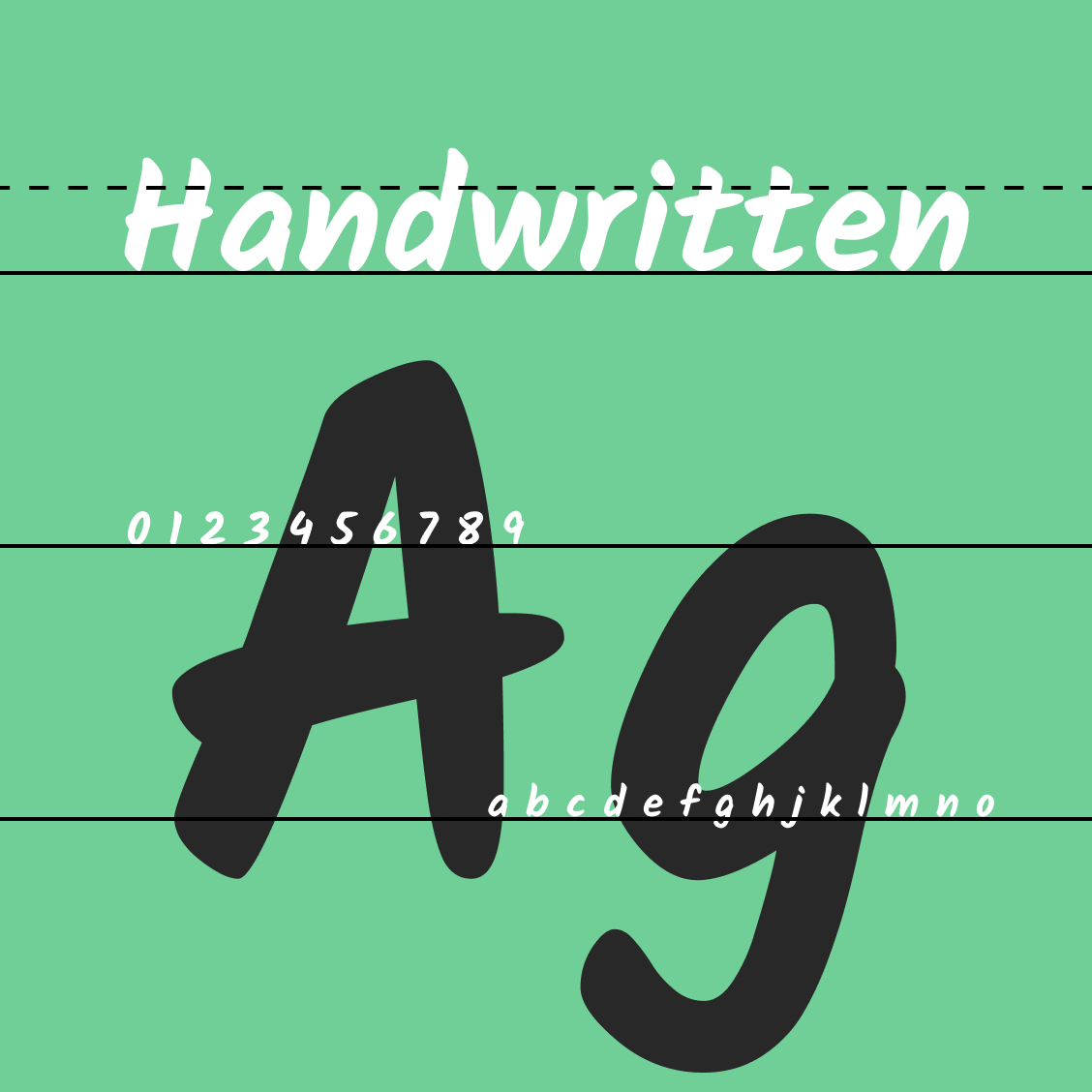
Pacifico font pairing
Pacifico is an original and fun handwriting font created by prolific typographer Vernon Adams, who also created Nunito
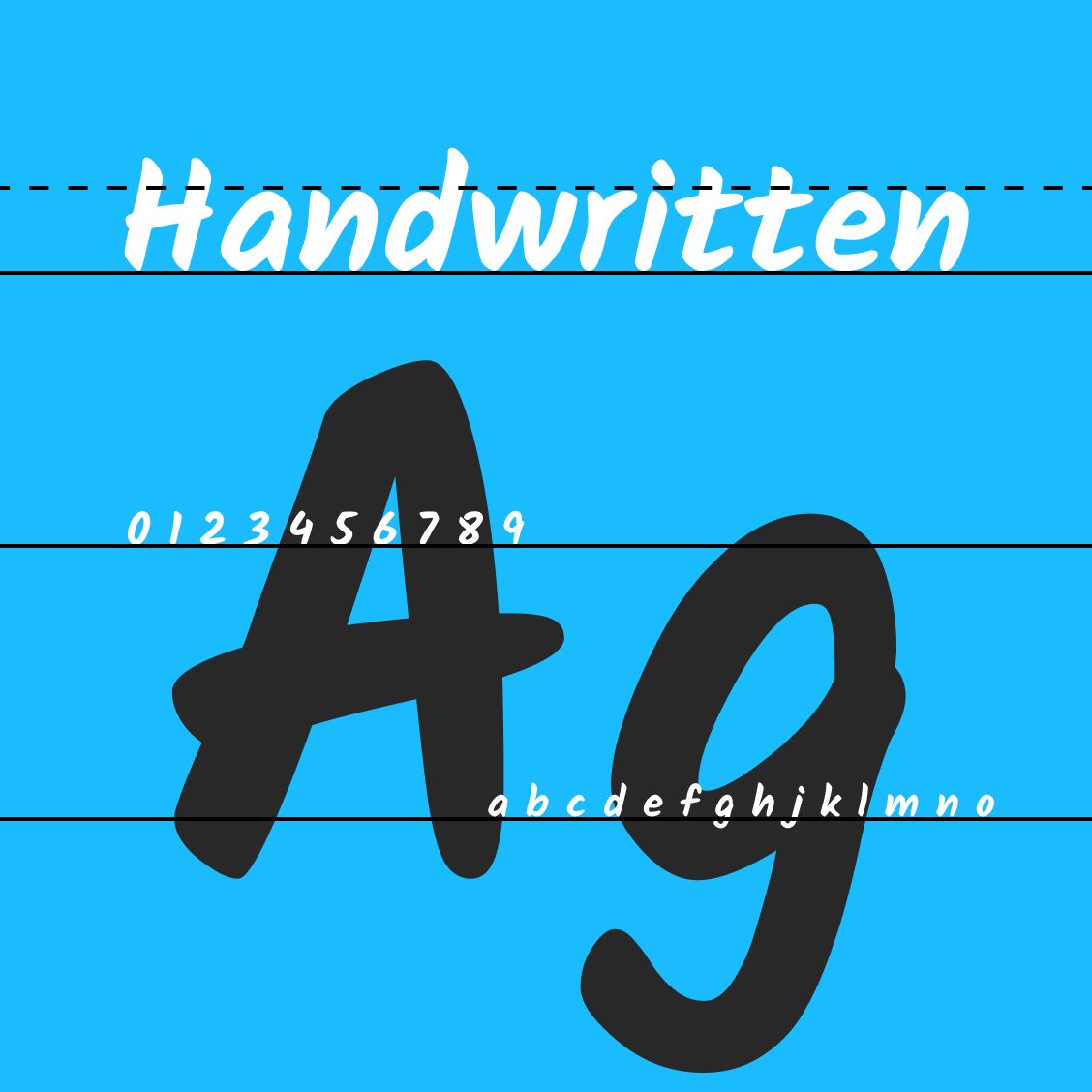
Permanent Marker font pairing
Permanent Marker was created to digitally recreate the look and feel of a beloved writing instrument.
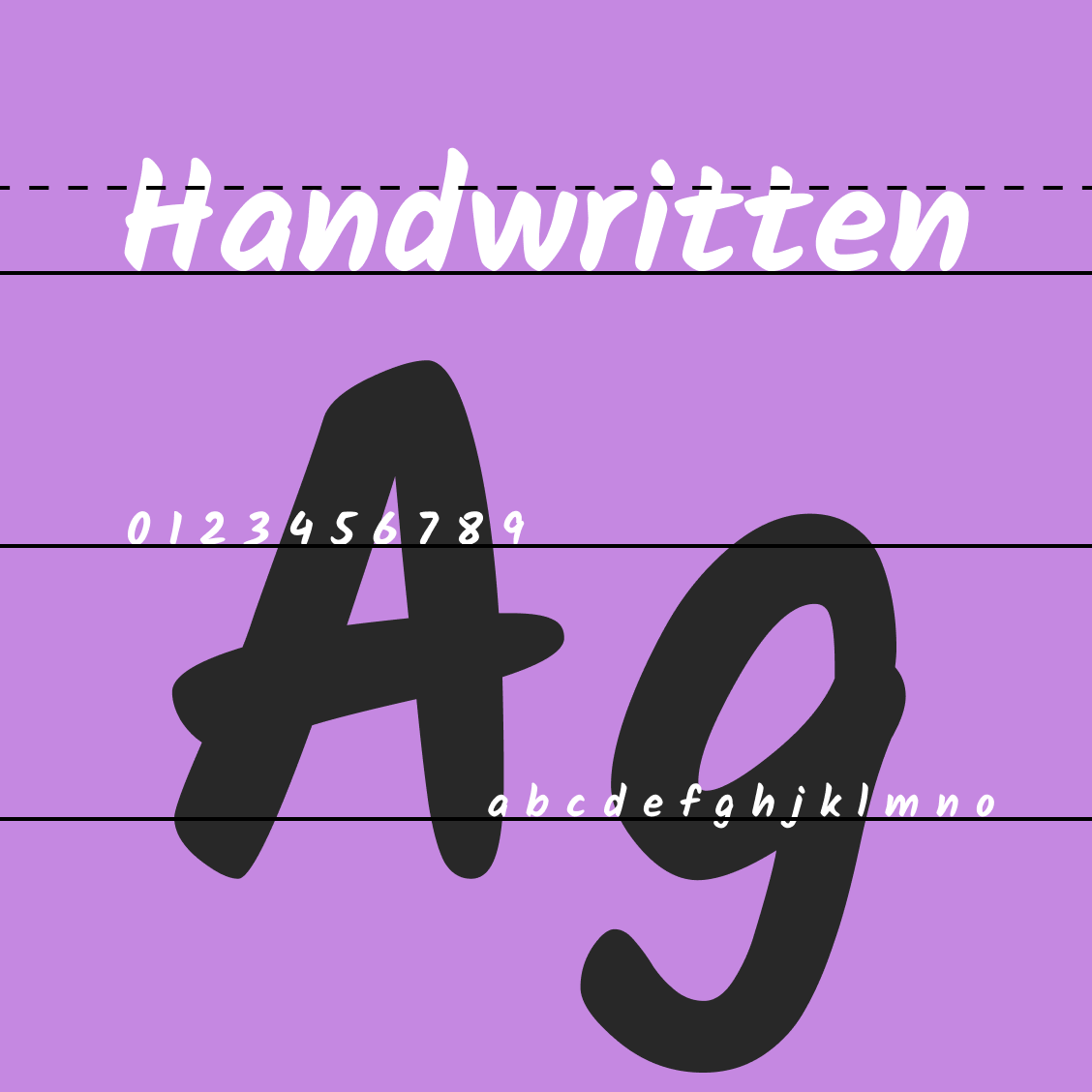
Gloria Hallelujah font pairing
Gloria Hallelujah is based on the handwriting of a Korean high school student. Its style is perfect for comic books.
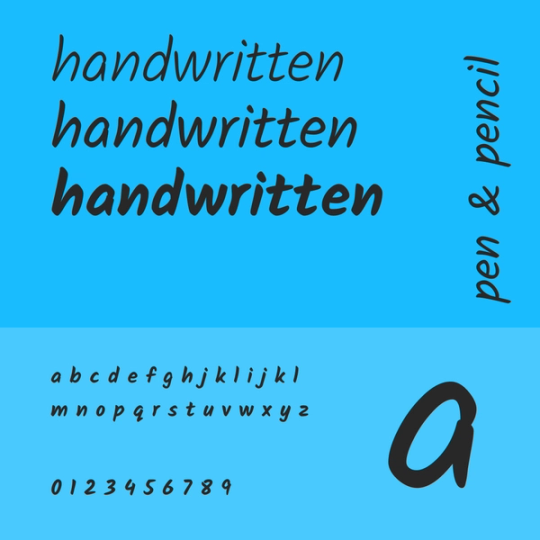
About Handwriting Fonts
Handwriting fonts bring a new artistry to fonts, as they are actually based on people’s individual handwriting. The essentially endless variations provide an opportunity for real individualization.
Cursive handwriting fonts
Cursive handwriting fonts are essentially the calligraphy of the digital age: handwriting fonts add a personalized touch to invitations, save-the-dates, or fliers sent by email or posted online.
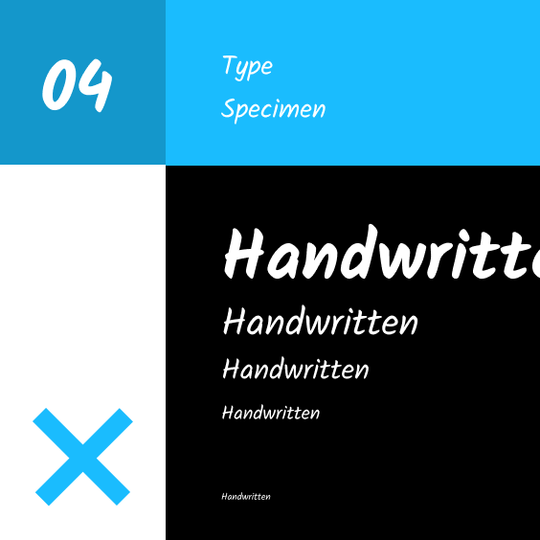
Fun handwriting fonts
If you want to make a personal blog or website stand out from all the rest, you can incorporate a fun handwriting font into the headers: it grabs attention, and helps identify your brand at a glance.
Free handwriting fonts
Permanent Marker Font makes a great header for an online journal, Pacifico is ideal for a personalized email signature, and Gloria Hallelujah Font is perfect for use in an online comic or webzine.